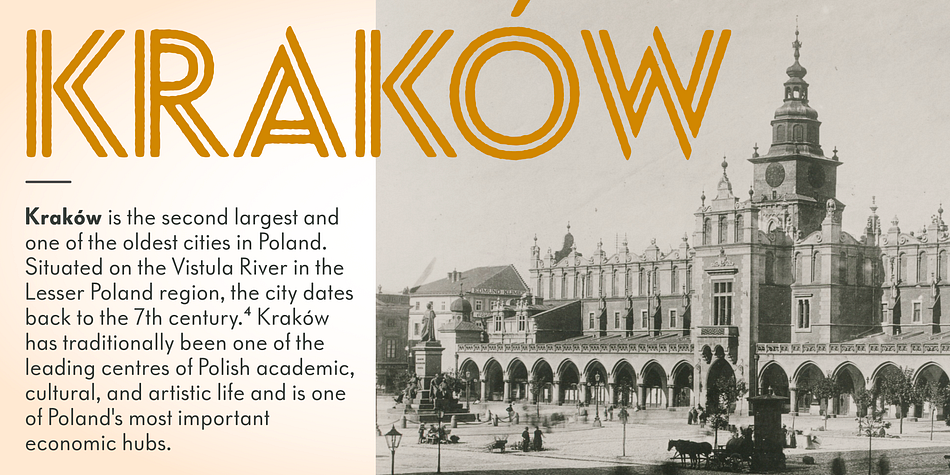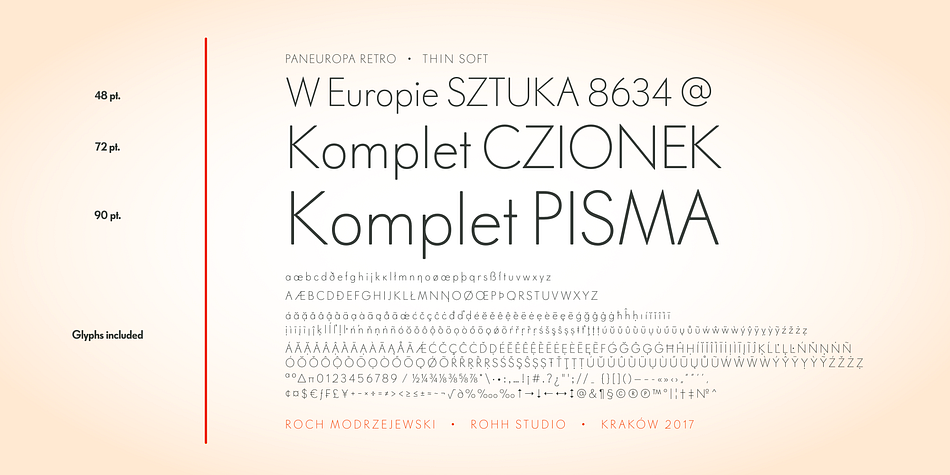
Paneuropa Retro
Paneuropa Retro is a sans serif font family. This typeface has thirty-six styles and was published by ROHH.
Paneuropa Retro™ is a geometric, clean and versatile font family inspired by Paneuropa - XX-century Polish classic, made by Idzikowski foundry in Warsaw, 1931. Paneuropa was a reinterpretation of Paul Renner’s famous Futura - it was a bit narrower, with different proportions and letter endings. Paneuropa had completely different number and punctuation shapes than Futura. The family was extremely popular in Poland and was used for every kind of editorial use.
Paneuropa Retro is a sibling to Paneuropa Nova™ (compeletely redrawn, modern version of the family with perfected letter forms, proportions and spacing, additional symbols, weights and italics).
Retro family recreates the original typeface keeping its weights, as well as idiosyncrasies in letter shapes and spacing.
Paneuropa Retro characteristics:
- letter shapes and proportions are close to the original to keep retro feel
- readjusted spacing for retro feel
- weights are taken from the original (Thin, Regular, Bold), two inbetween weights are added (Light, DemiBold); Italics added
- additional style - Paneuropa Inline - great for display use (also existent in original typeface)
- three different versions of each font: Retro (with slightly softened edges), Soft (with soft external and internal edges), and Rough.
The family is very versatile. The Inline style as well as bold and thin weights are perfect for headlines and display use, other styles works wonderfully as paragraph text.
Paneuropa Retro’s broad variety of weights makes it suitable for headlines of all sizes, as well as for long and short paragraphs of text. It is excellent for on-screen use, for web applications, user interfaces, as well as for all kind of print purposes, like branding, packaging and editorial design.
Paneuropa Retro consists of 36 fonts - 5 weights + Inline style and their corresponding italics in three versions. It has extended support for latin languages, as well as broad number of OpenType features, such as case sensitive forms, fractions, superscript and subscript, ordinals, currencies and symbols.